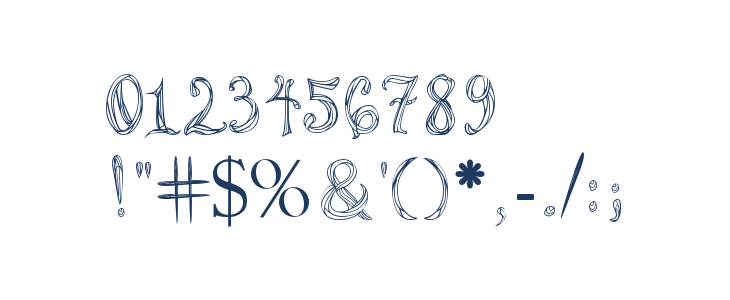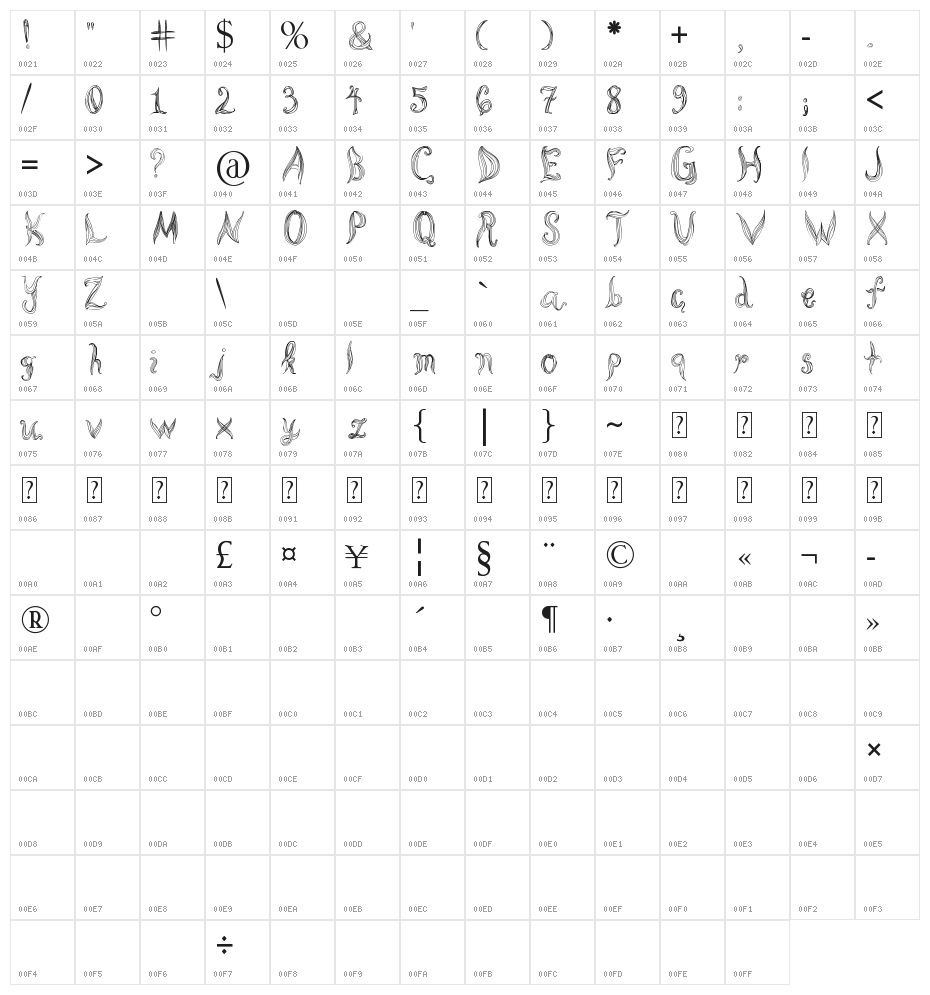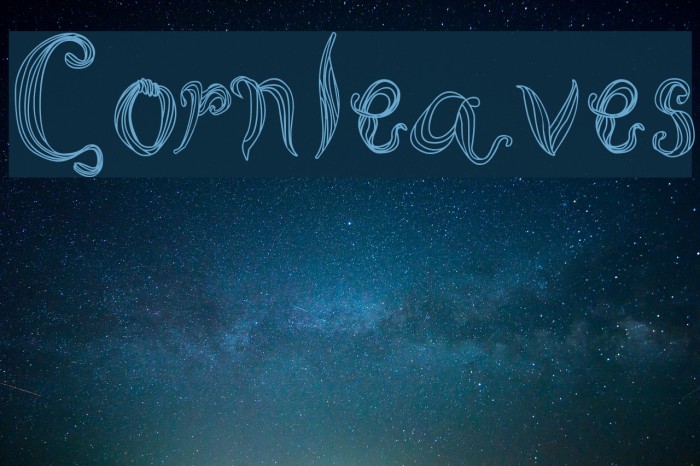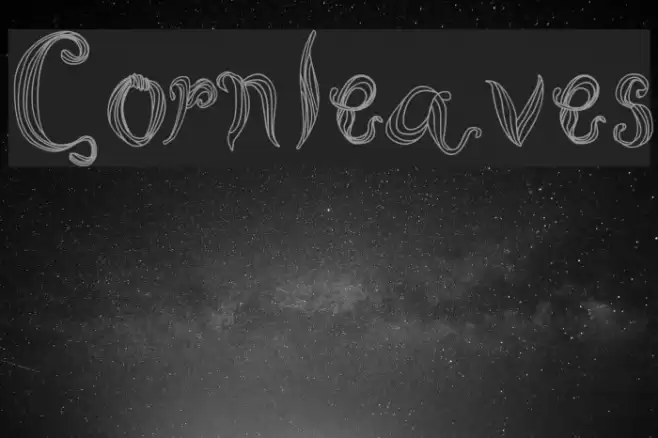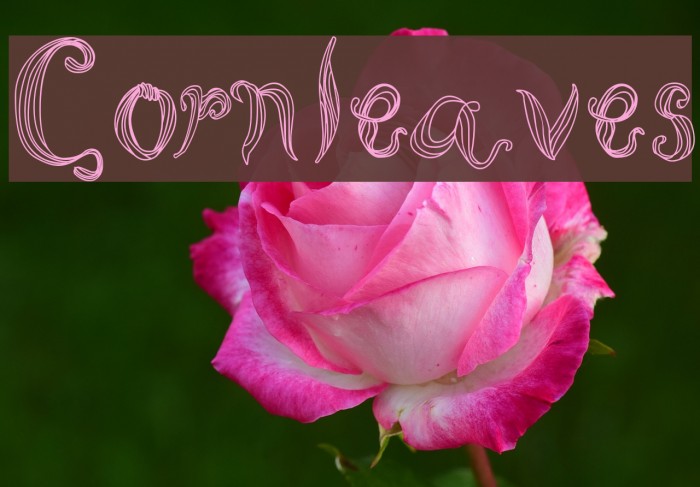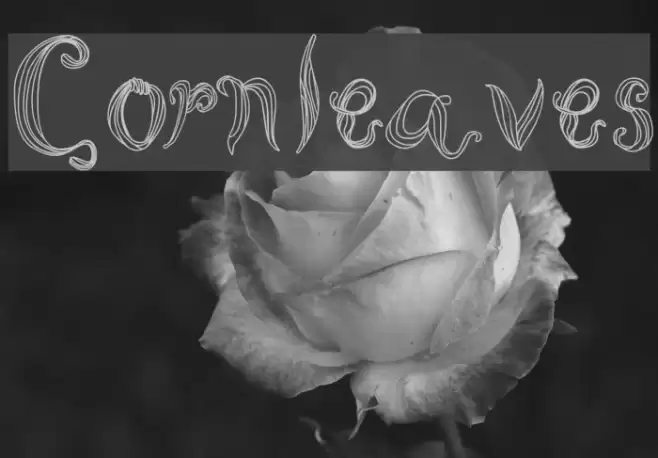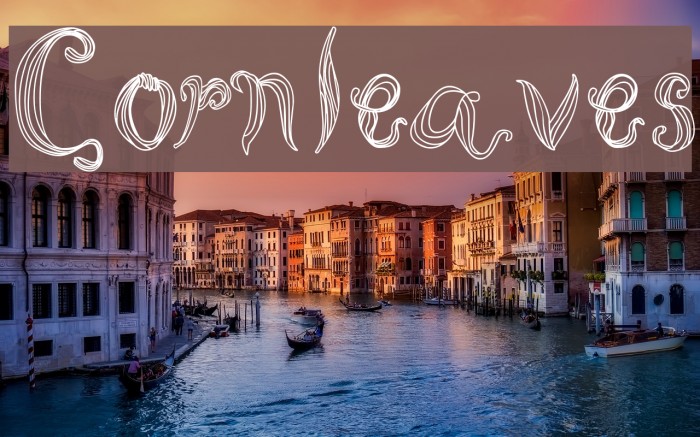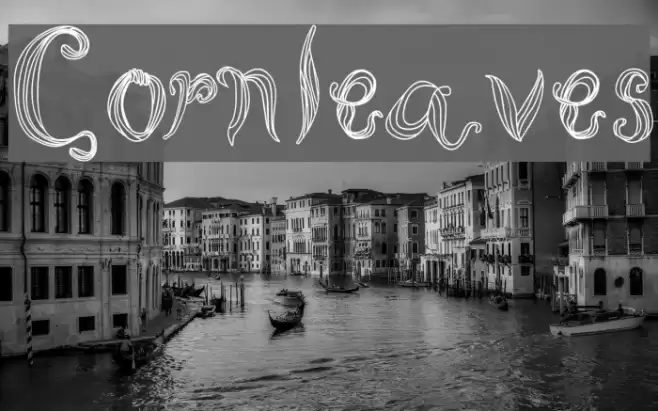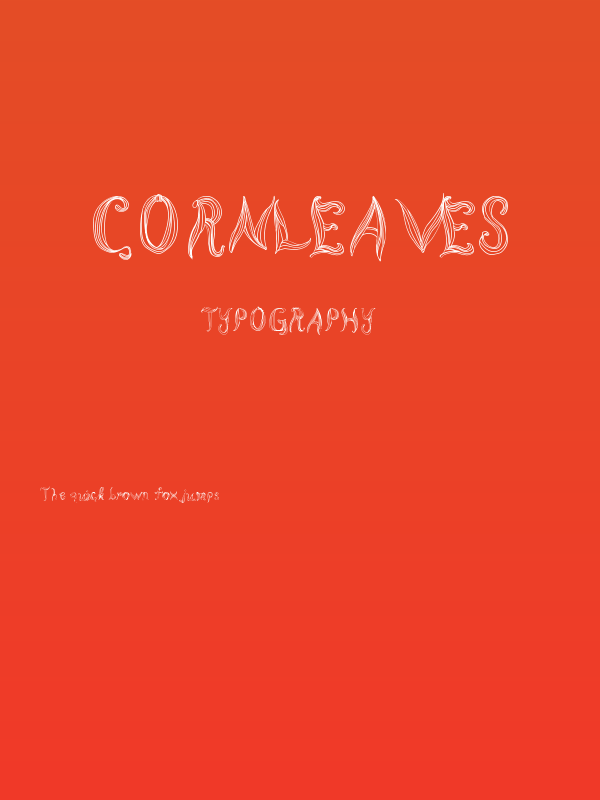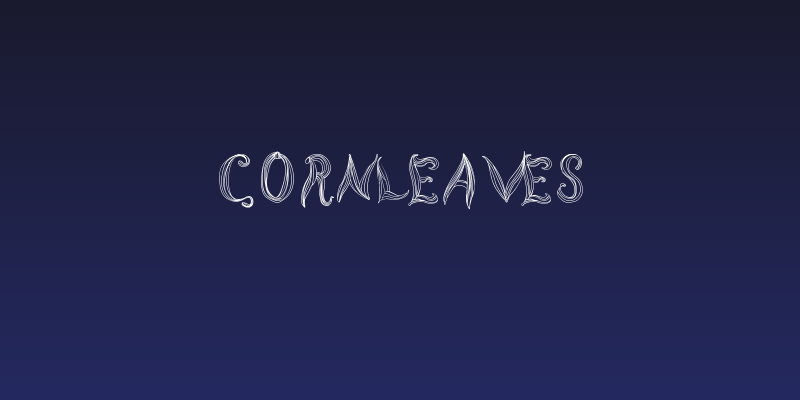
Cornleaves Font
Cornleaves Description
This font features a unique and artistic design, with each character resembling intertwined leaves or vines. The strokes are fluid and organic, giving a sense of movement and natural elegance. The uppercase letters are bold and prominent, while the lowercase letters maintain a consistent style with slightly more delicate lines. Numbers and special characters follow the same intricate pattern, ensuring a cohesive look across all elements. The overall appearance is decorative and whimsical, making it suitable for creative and nature-inspired projects.
| Use Case | Logos, Posters, Invitations |
| Proposed Projects | Ideal for nature-themed branding, eco-friendly product packaging, artistic posters, and invitations. |